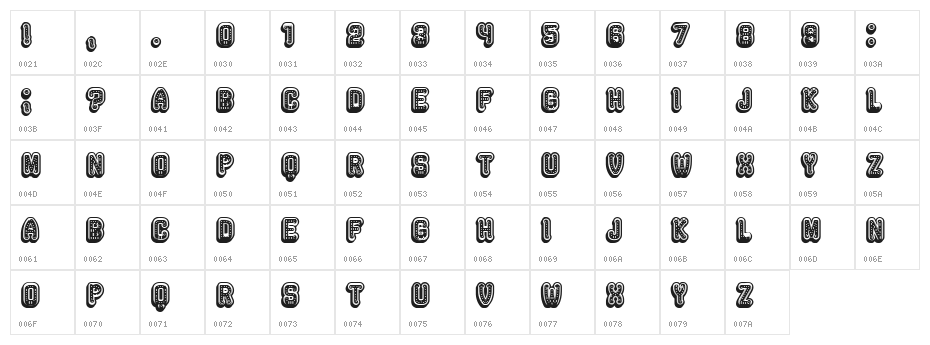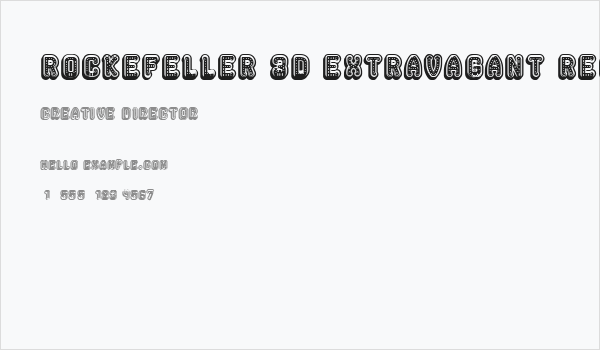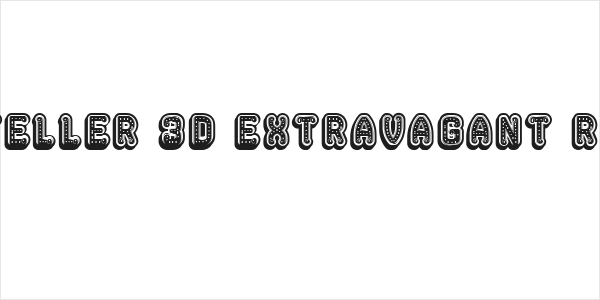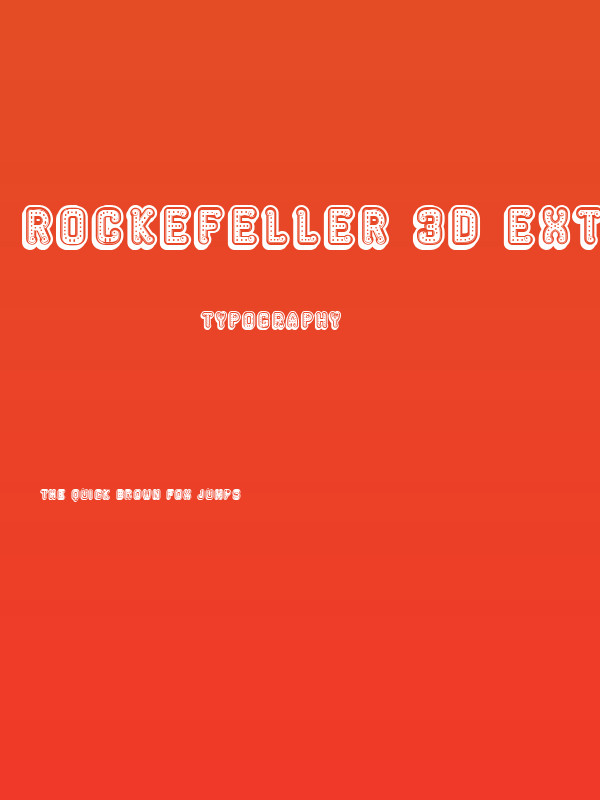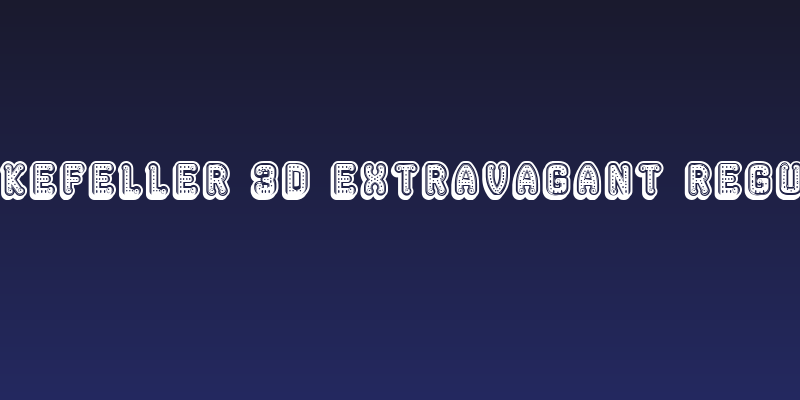
Rockefeller 3D Extravagant Regular Font
Rockefeller 3D Extravagant Regular Description
This font features a bold, three-dimensional appearance with a decorative style that is both eye-catching and playful. Each character is outlined with a thick black border, giving it a strong presence. The interior of the letters is filled with a dotted pattern, adding texture and depth. The font's design is reminiscent of vintage marquee lights, making it ideal for projects that require a touch of nostalgia or whimsy. The characters are evenly spaced, ensuring readability while maintaining their unique style. This font is perfect for creating standout headlines, posters, or any design that needs a bold statement.
Overall StyleVintage
Proposed ProjectsIdeal for posters, headlines, event invitations, and retro-themed designs.